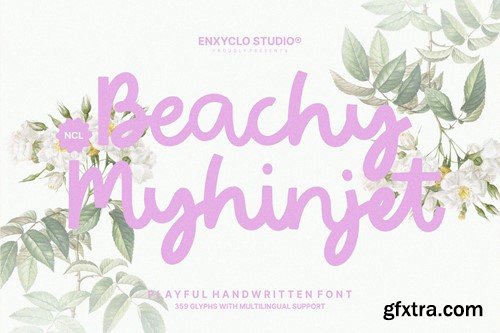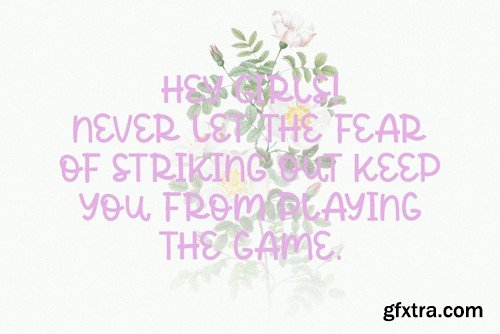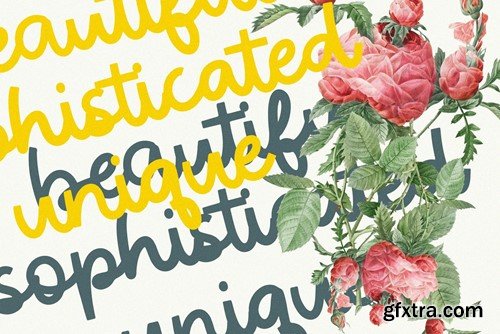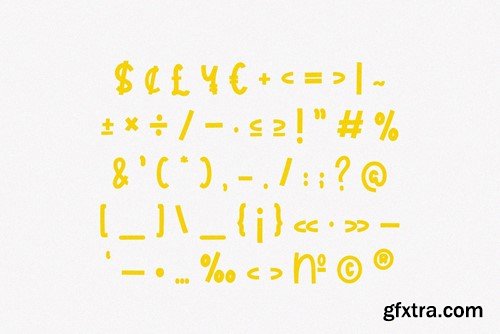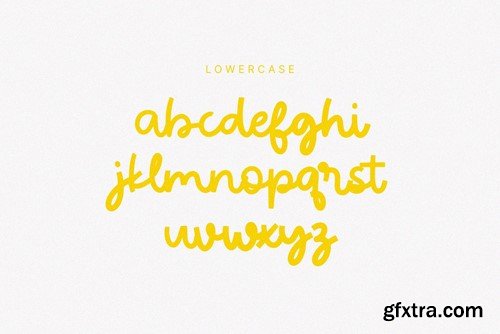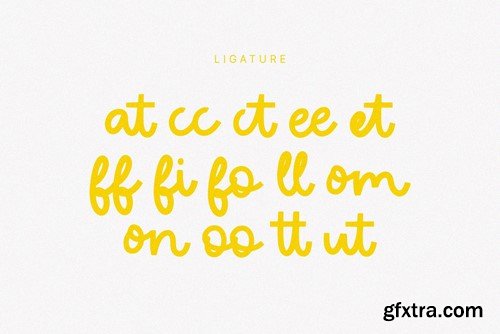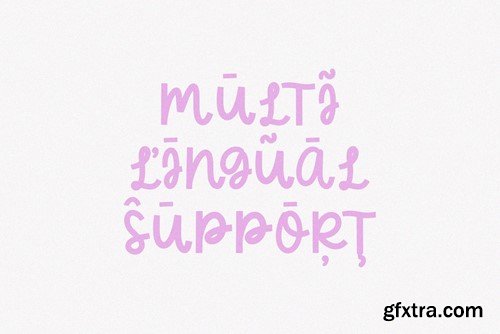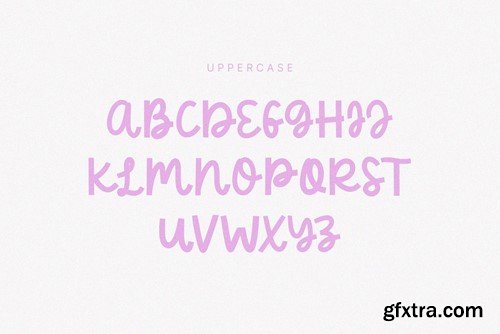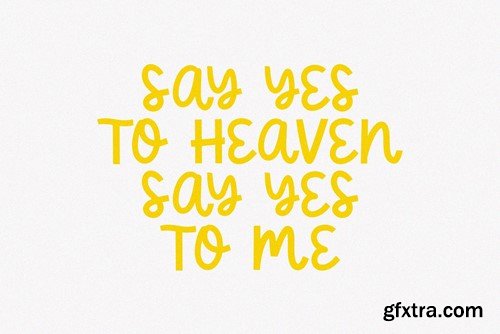
NCL Beachy Myhinjet - 游戏风格手写字体 4XGYE6G
NCL Beachy Myhinjet - Playful Handwritten Font 4XGYE6G
NCL Beachy Myhinjet - Playful Handwritten Font
NCL Beachy Myhinjet is a playful handwritten display font. Masterfully designed to become a true favorite, this font has the potential to bring each of your creative ideas to the highest level! It was purposely crafted to be used in large point sizes, although it doesn’t lose its magic in small point sizes. It is perfect for headline, digital ads, magazines, website, poster, branding, and logos. No matter the topic, this font will be an incredible asset to your fonts’ library, as it has the potential to elevate any creation. With this beautiful font, absolutely you can make your project stand out from the rest.
• 359 Unique Glyphs
• 15 Ligature
• Uppercase & Lowercase
• Numeral, Punctuation & Symbols
• Multilingual Support